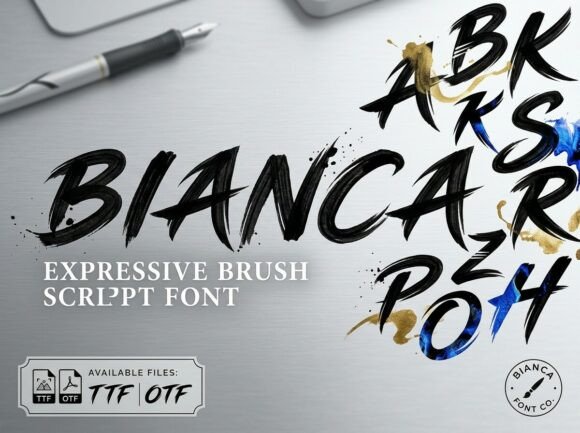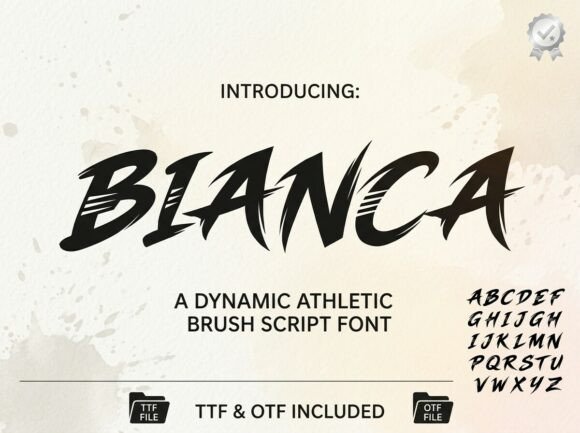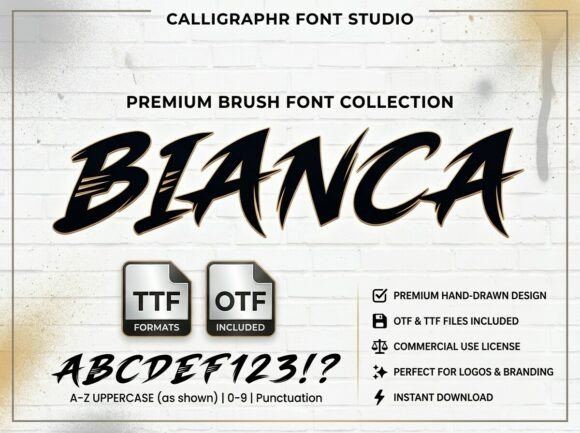
Introducing Bianca Font: The Ultimate Decorative Display Font
Are you tired of using the same old fonts for your creative projects? Do you want to make a statement and grab the attention of your audience? Look no further than Bianca Font, a stunning decorative display font designed to be the center of attention. With its unique artistic elements and strong visual personality, this font is perfect for creators who want to break away from the ordinary and add a touch of elegance to their designs.
A Font that Makes a Statement
Bianca Font is a versatile decorative font that is perfect for bold headlines, artistic logos, and creative packaging. Its strong visual personality and unique artistic elements make it an ideal choice for designers who want to create a lasting impression. Whether you’re working on a branding project, a marketing campaign, or a personal creative endeavor, Bianca Font is sure to make your design stand out from the crowd.
What to Expect from Bianca Font
⚠️ IMPORTANT NOTE BEFORE PURCHASE: Bianca Font is an ALL-CAPS (Uppercase Only) display typeface. This means that it does not include lowercase letters. It is specifically designed for high-impact headlines, logos, and decorative initials where every letter is a work of art. If you’re looking for a font that includes both uppercase and lowercase letters, Bianca Font may not be the best choice for you.
Why Choose Bianca Font?
So, why should you choose Bianca Font for your next creative project? Here are just a few reasons:
- Unique and Artistic: Bianca Font features unique artistic elements that will add a touch of elegance to your designs.
- Versatile: This font is perfect for bold headlines, artistic logos, and creative packaging.
- Professional and Polished: Despite its decorative nature, Bianca Font maintains a professional and polished finish that’s perfect for high-end designs.
How to Use Bianca Font
Bianca Font is perfect for a variety of design projects, including:
- Branding: Use Bianca Font to create bold and eye-catching logos that will help your brand stand out.
- Marketing: This font is perfect for creating high-impact headlines and advertisements that will grab the attention of your audience.
- Packaging: Add a touch of elegance to your product packaging with Bianca Font.
- Signage: Use Bianca Font to create eye-catching signs and displays that will make your business stand out.
If you’re looking for a font that will make a statement and add a touch of elegance to your designs, look no further than Bianca Font. With its unique artistic elements, strong visual personality, and versatility, this font is perfect for creators who want to break away from the ordinary. Whether you’re working on a branding project, a marketing campaign, or a personal creative endeavor, Bianca Font is sure to make your design stand out from the crowd.